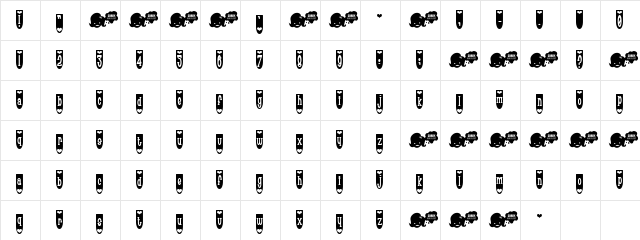
Populuxe Heart On Regular
Design Context for Populuxe Heart On
Populuxe Heart On is a composed and adaptable typeface that performs quietly and consistently across a wide range of design contexts.